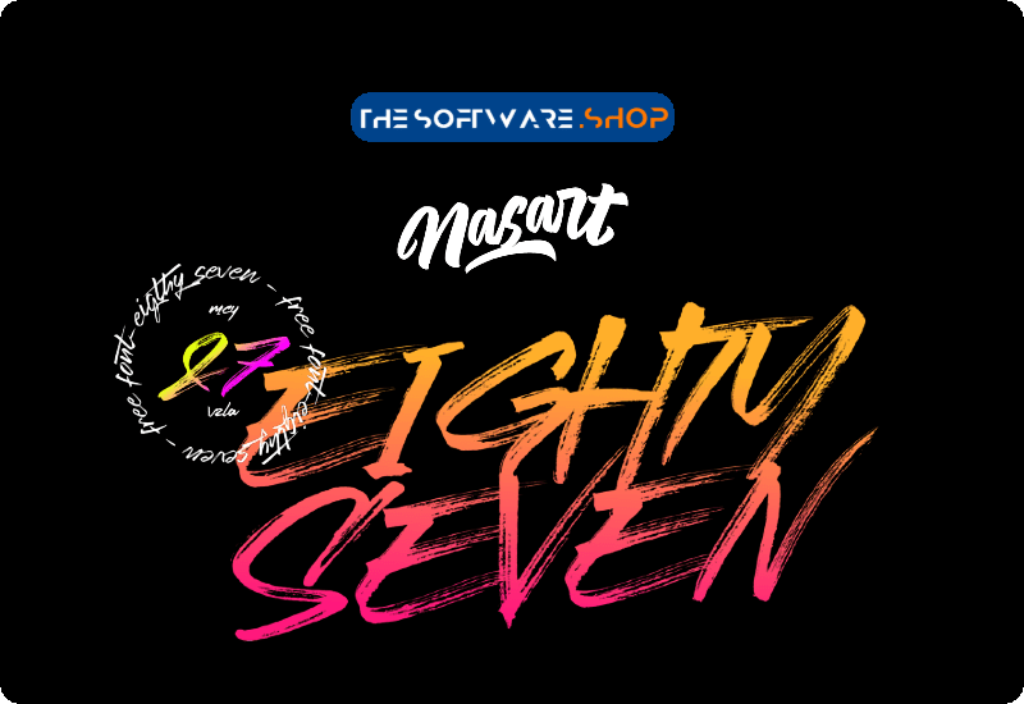
Today’s free font comes from DealJumbo, which you can get Eightyseven, a Handwritten, brush & urban style sans font from NasArt for free. This free font can be used for both personal and commercial purposes, for yourself or on behalf of a client, on their own, or as part of new work.